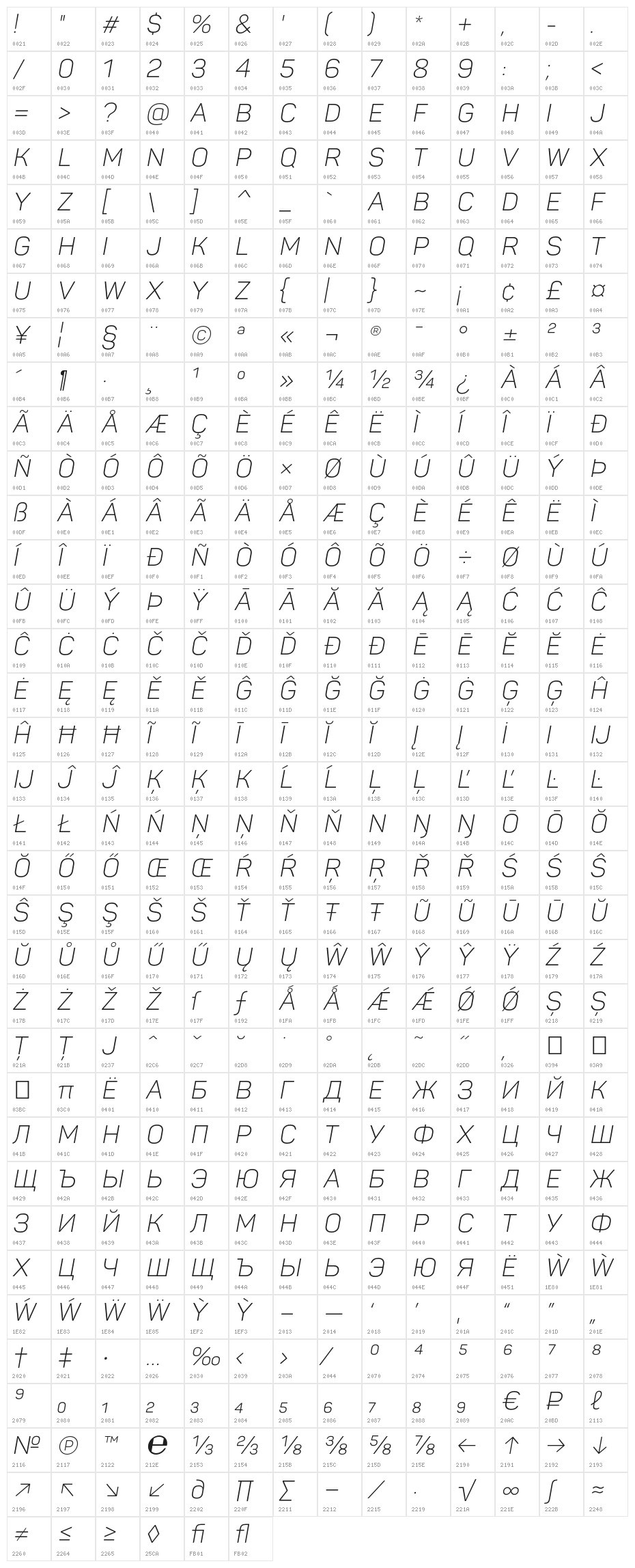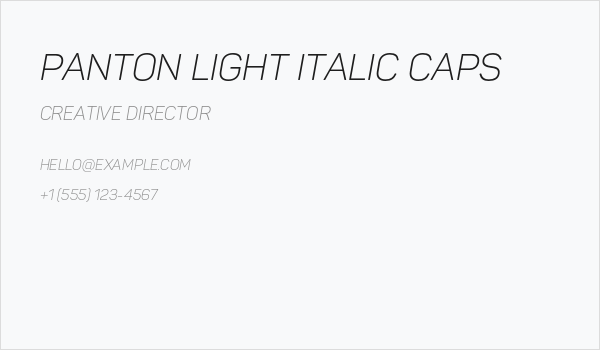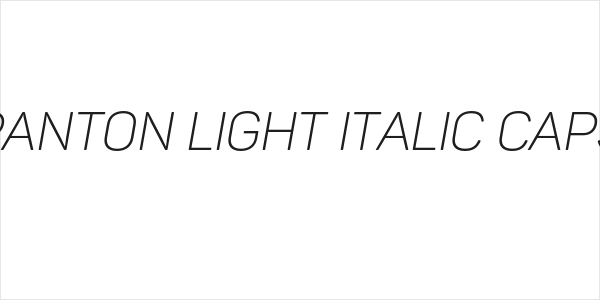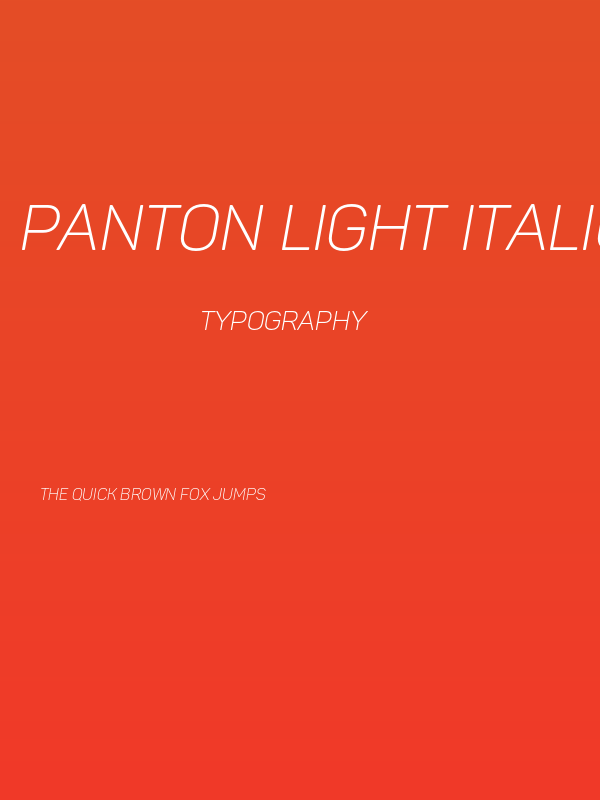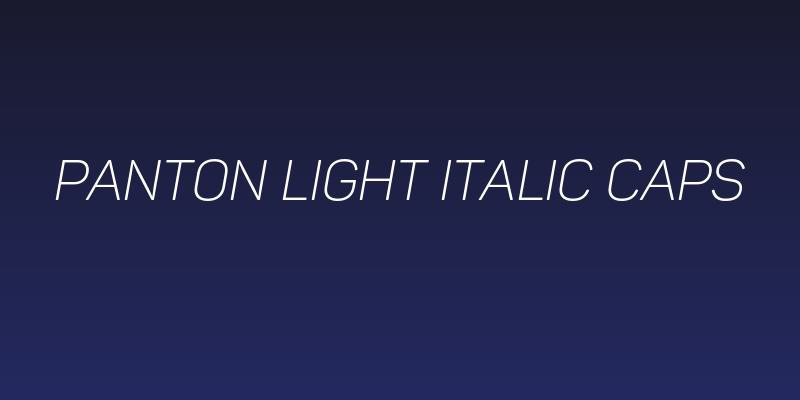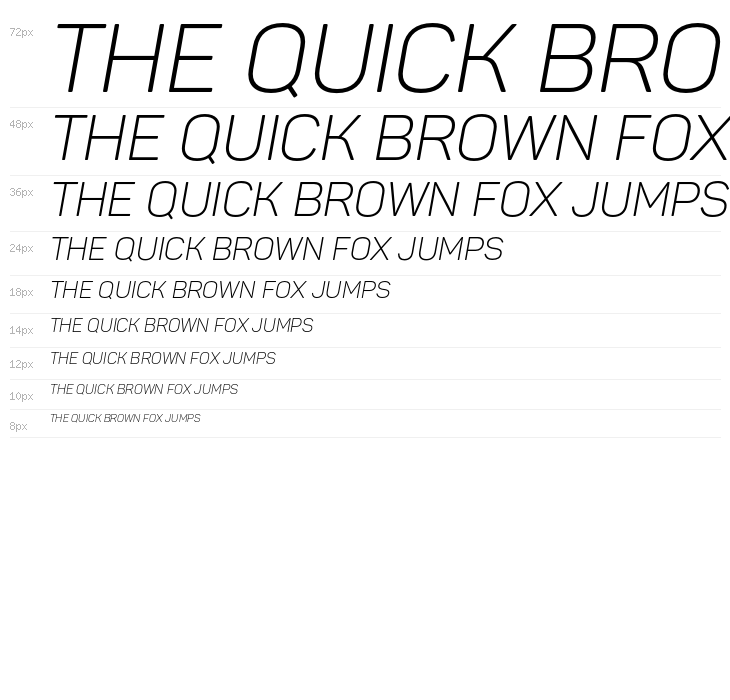
Panton Light italic Caps Font
Panton Light italic Caps Description
This font exhibits a sleek and modern aesthetic, characterized by its light weight and italicized form. The letters are evenly spaced with a slight slant, giving it a dynamic and forward-moving appearance. The clean lines and minimalistic design make it suitable for contemporary projects. The numerals and special characters maintain the same elegant style, ensuring consistency across all uses. Its simplicity and clarity make it versatile for various design needs, from digital to print media.
| Proposed Projects | Ideal for branding, advertising, and editorial design where a modern and sleek look is desired. |